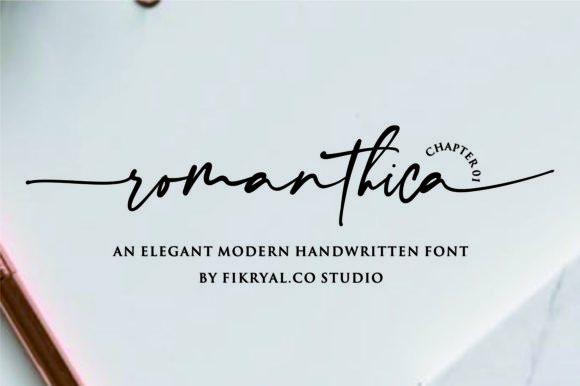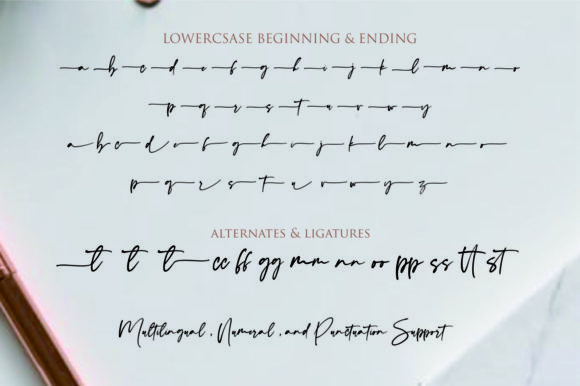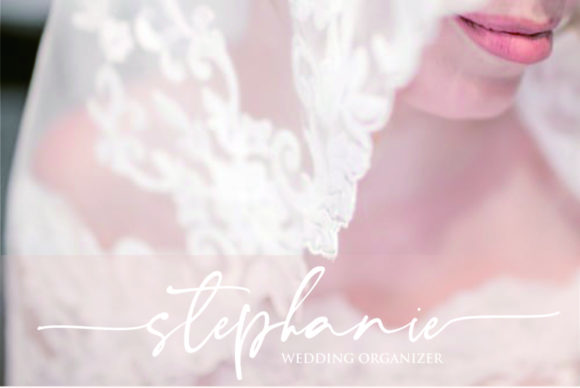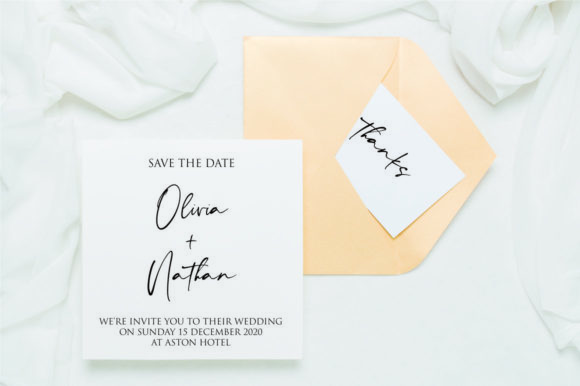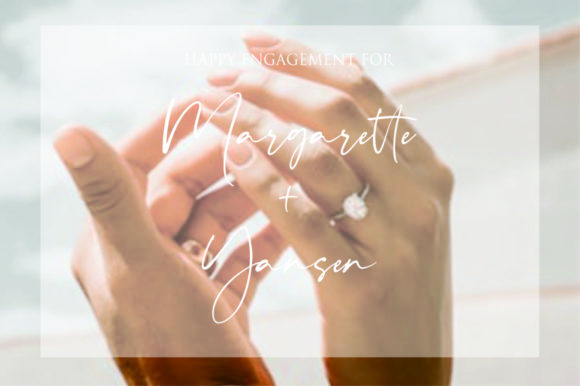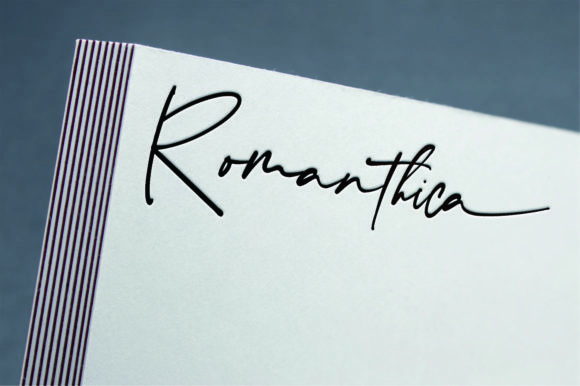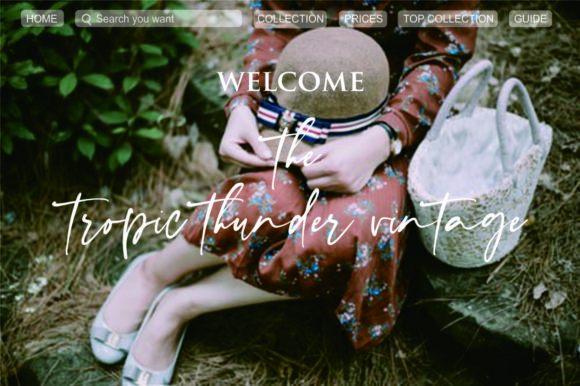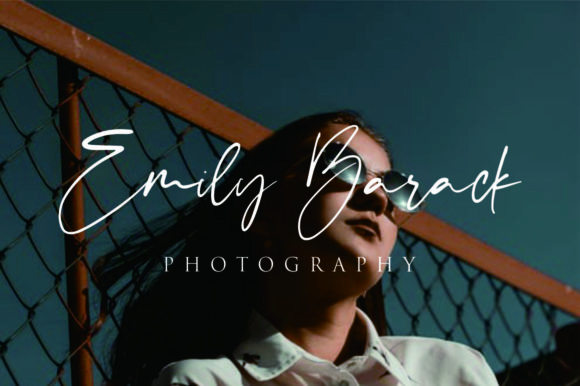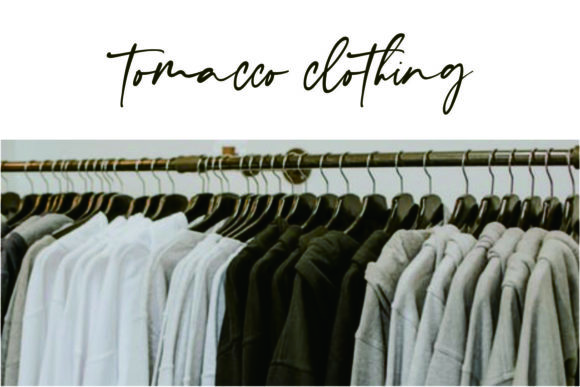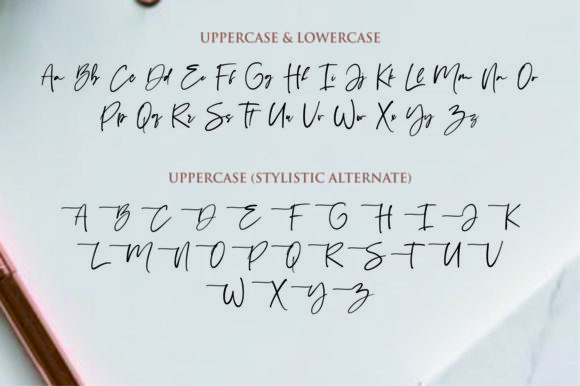
HomeScript FontsRomanthica Font Script Fonts Romanthica Font FacebookXPinterestWhatsApp Romanthica Font Poster 2 Romanthica Font Poster 3 Romanthica Font Poster 4 Romanthica Font Poster 5 Romanthica Font Poster 6 Romanthica Font Poster 7 Romanthica Font Poster 8 Romanthica Font Poster 9 Romanthica Font Poster 10 About Romanthica Font Romanthica is an elegant and modern font. It will add a beautiful touch to any crafting project. DOWNLOAD ON CREATIVE FABRICAThis font is sold and delivered by Creative Fabrica. Font Canyon may earn a commission if you buy through this link. People also explored Flokison Font Brugek Font Play Fairy Font Aglonema Florest Font Katherinn Font Defitta Font Medieval Font Flowkart Font Sun Flowers Font 323 0 TagsRomanthica Font Previous articleBlittar Rain FontNext articleAlkatros Font LEAVE A REPLY Cancel reply Comment: Please enter your comment! Name:* Please enter your name here Email:* You have entered an incorrect email address! Please enter your email address here Website: Save my name, email, and website in this browser for the next time I comment. Personal Use Free Indonesia Dermawan Personal Use Free Read more about this font Miss Love Personal Use Free Read more about this font Lixdu Personal Use Free Read more about this font Hagia Signal Personal Use Free Read more about this font BLOG The 10 Best Handwriting Fonts to Add Personality to Your Designs 10 of the Best Handwriting Fonts for Adding Personality to Your Designs There will undoubtedly be no other better choice than handwriting fonts to give... Best Fonts for T-Shirt Design – Top 2025 Picks Free vs Paid Fonts: Why Investing in Premium Fonts Is Worth It How to Install and Use Fonts on Windows, macOS, and Web Projects